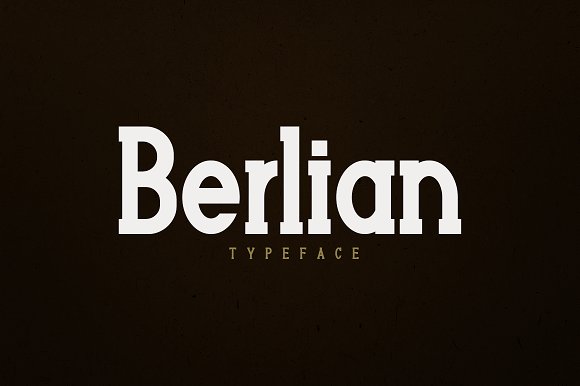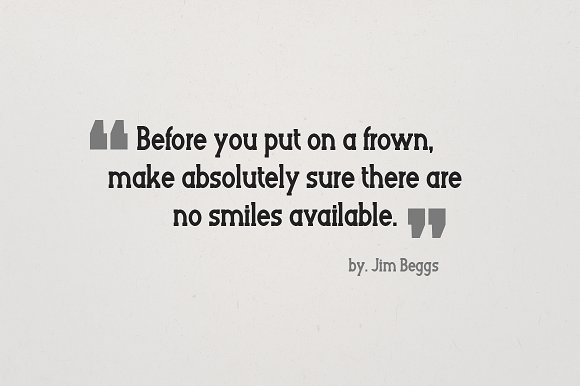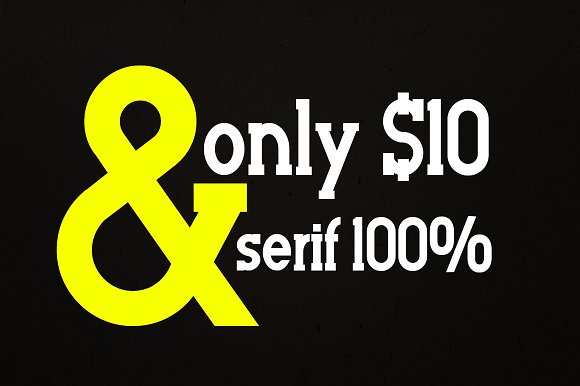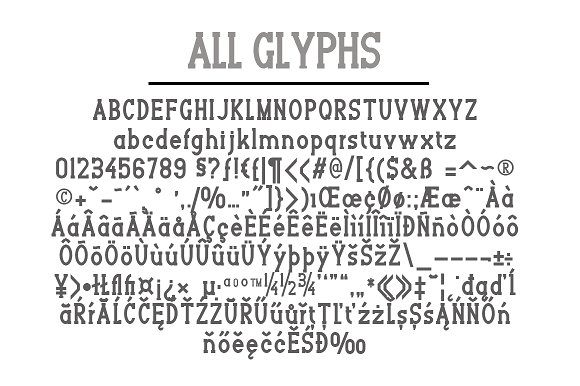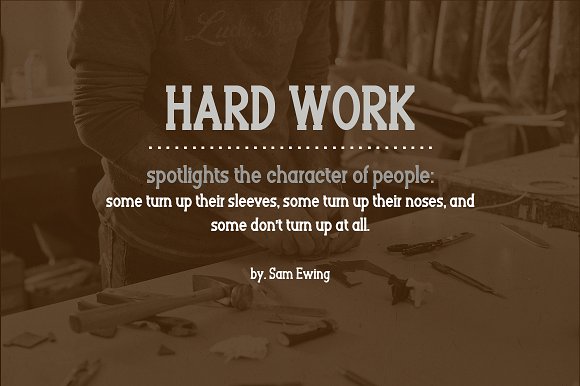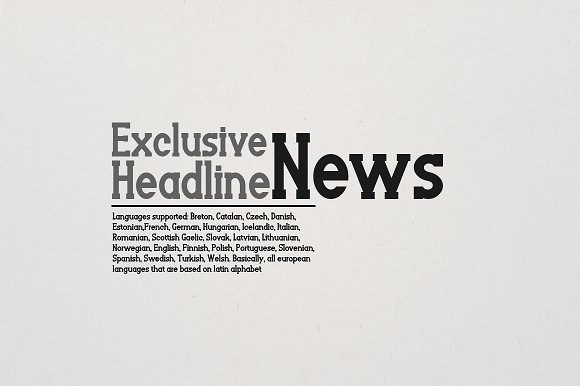
Berlian Serif Font
Berlian is typography with a firm structure and very comfortable for the reader, also has a simple character. very suitable for official media such as banners, magazines, newspapers, books, and others.